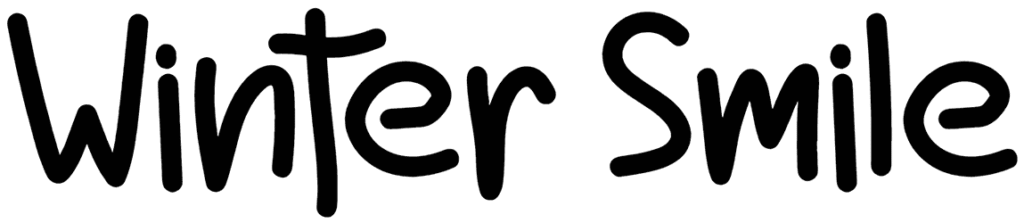
Winter Smile Font
For your modern design, you can use a longhand and minimal look that can capture everyone’s heart. As a handwritten font, Winter Smile is an elegant face for a lot of items with various themes. Set it on product logos, Instagram quotes, planners, or the like, and this bullet journal font would make them gorgeous.